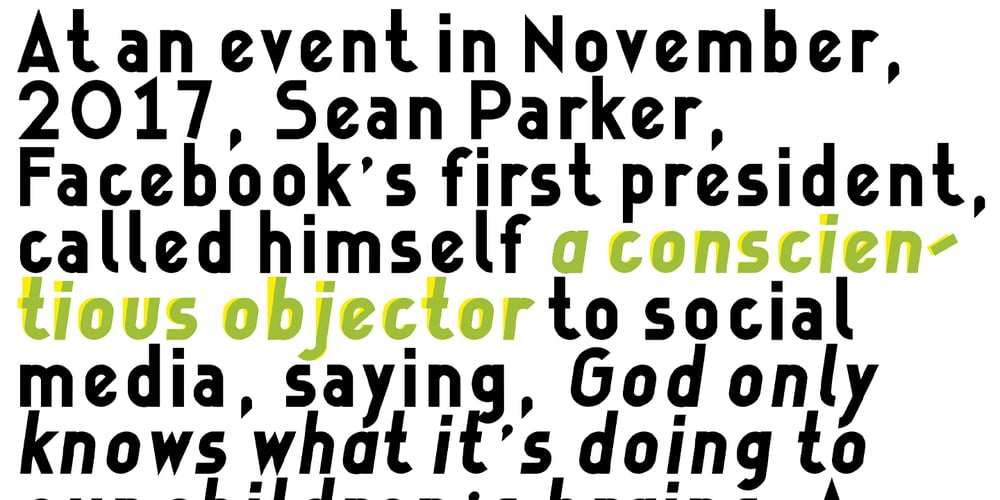
DF Camino
DF Camino font
DF Camino Font Family was designed by Ko Sliggers and published by Dutchfonts. DF Camino contains 6 styles and family package options. DF Camino is a revised mid 20th century geometric sanserif which guides you from somewhere to elsewhere. And beyond.